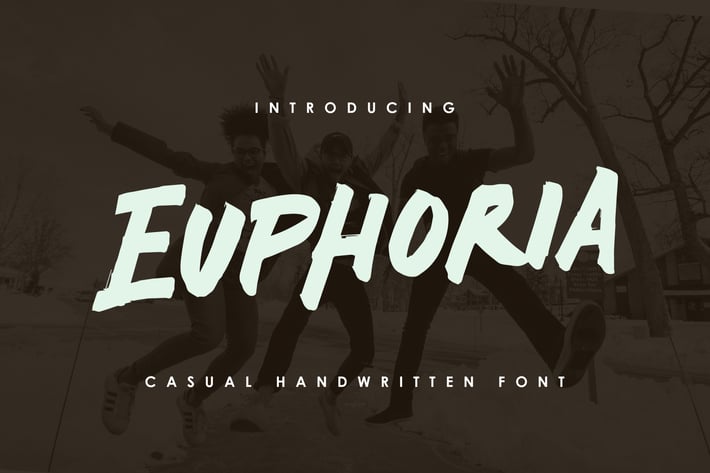
Euphoria - Casual Handwritten Font
Euphoria is perfect to use for Logotype, Letterhead, Poster, Apparel Design, Label and etc.
The alternative characters were divided into several features such as Stylistic Alternates and Ligature.